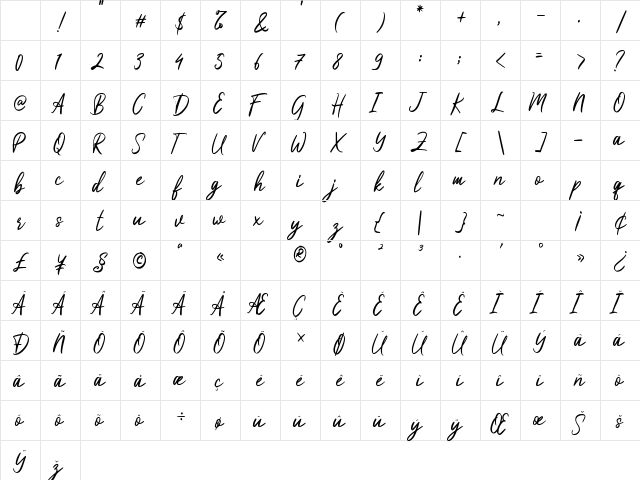
Complete Dandiyella Regular glyph index. Displaying only characters natively supported by Dandiyella Regular font.
Dandiyella is a composed and adaptable typeface that performs quietly and consistently across a wide range of design contexts.